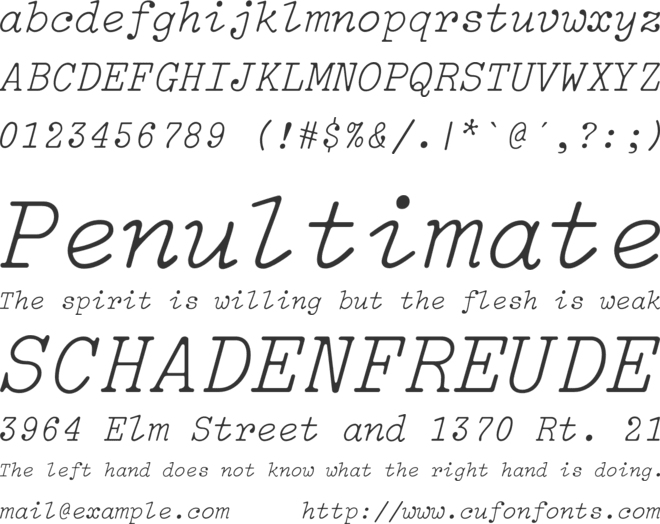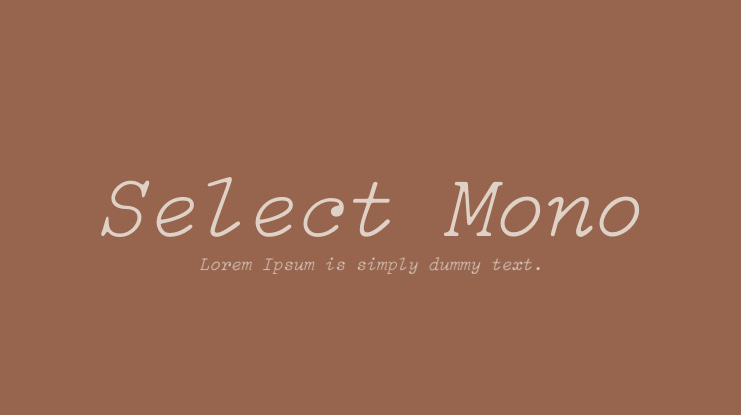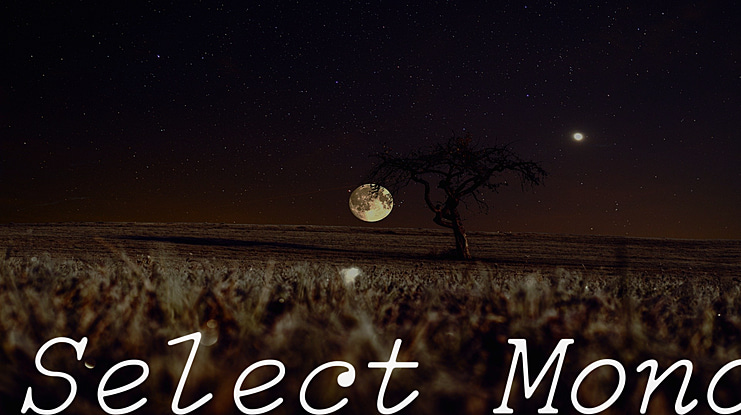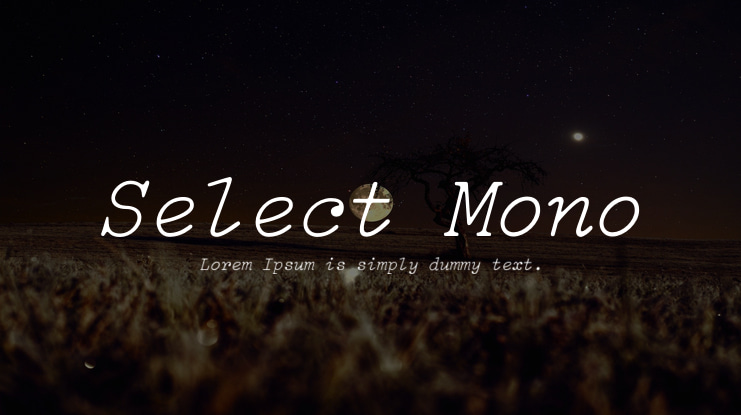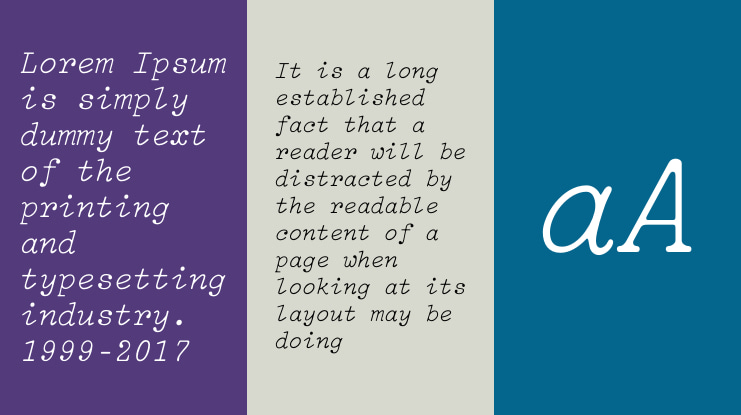
Select Mono Font
Michael McMaster
A single-weight italics-only monospaced font, envisioned as a revival of the IBM® Selectric typewriter's “Light Italic” font.
Featuring: Diacritics!
Français; naïve; bánh mì, etc.
Fractions & mathematical symbols!
½ ¼ ¾ ≈ ~ = ≠ ∙ ÷ − + ± × ∕ ≥ ∞ ≤ % ‰
Other symbols!
@ & § © ® ™ ° | ¦ * † ‡ ^ ¢ ¤ $ € £ ¥